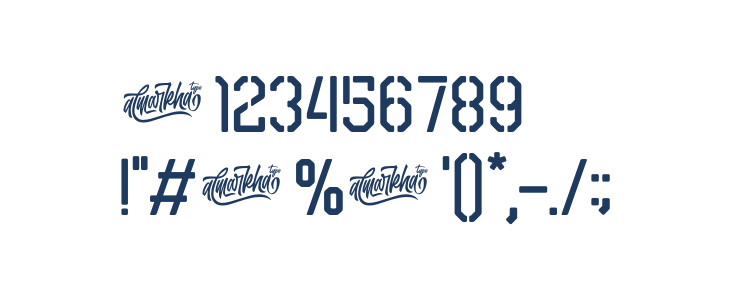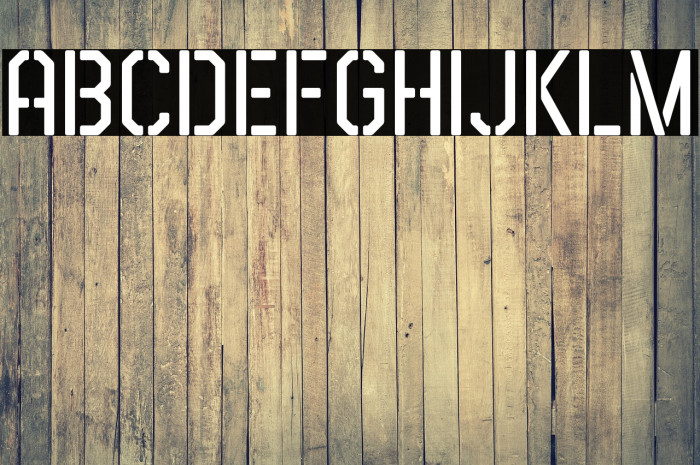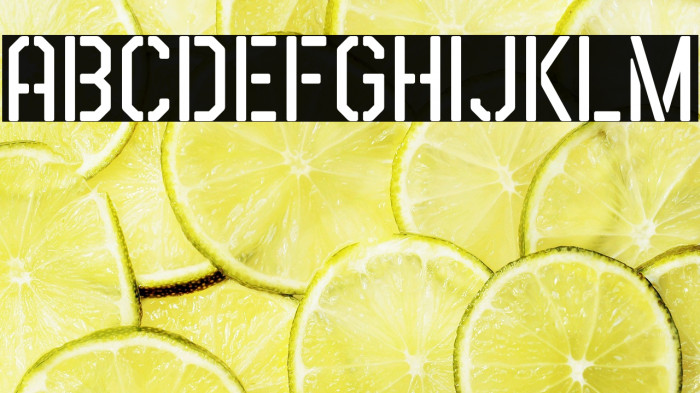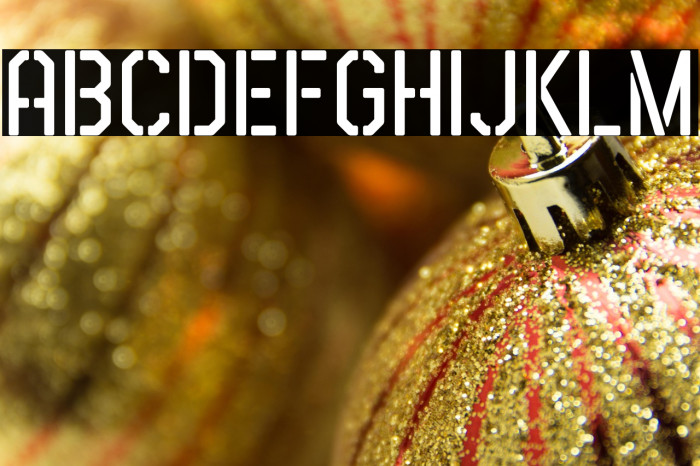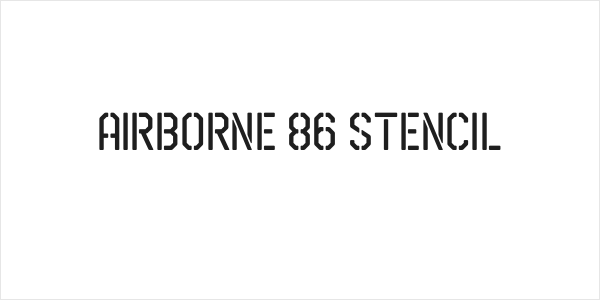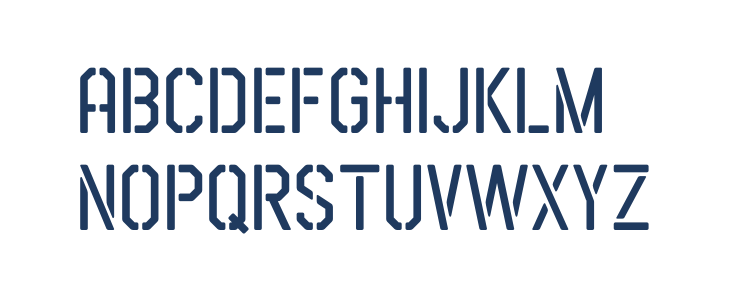
Airborne 86 Stencil Font
Airborne 86 Stencil Description
This font features a bold, stencil-like design with strong geometric shapes and clear cutouts, giving it a rugged and industrial appearance. The uppercase letters are particularly striking, with their angular forms and consistent line thickness, making them highly legible and impactful. The numbers and special characters maintain the same bold style, ensuring uniformity across all elements. This font's design is reminiscent of military or industrial signage, making it perfect for projects that require a strong, authoritative presence.
| Overall Style | Industrial, Modern |
| Use Case | Headlines, Logos, Signage |
| Proposed Projects | Ideal for military-themed designs, industrial branding, signage, and posters. |